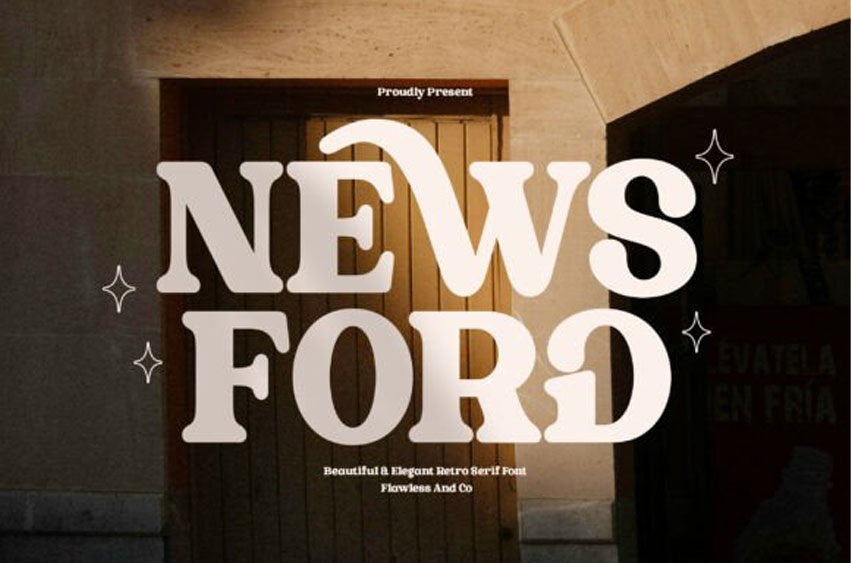
News Ford Font is an elegant retro serif font that blends timeless sophistication with a charming vintage character.
Designed with graceful curves, refined serifs, and beautifully balanced proportions, News Ford brings a sense of warmth, nostalgia, and understated luxury to every composition. Its distinctive letterforms create a polished yet expressive appearance, making it an excellent choice for designs that need a classic personality with a modern touch.